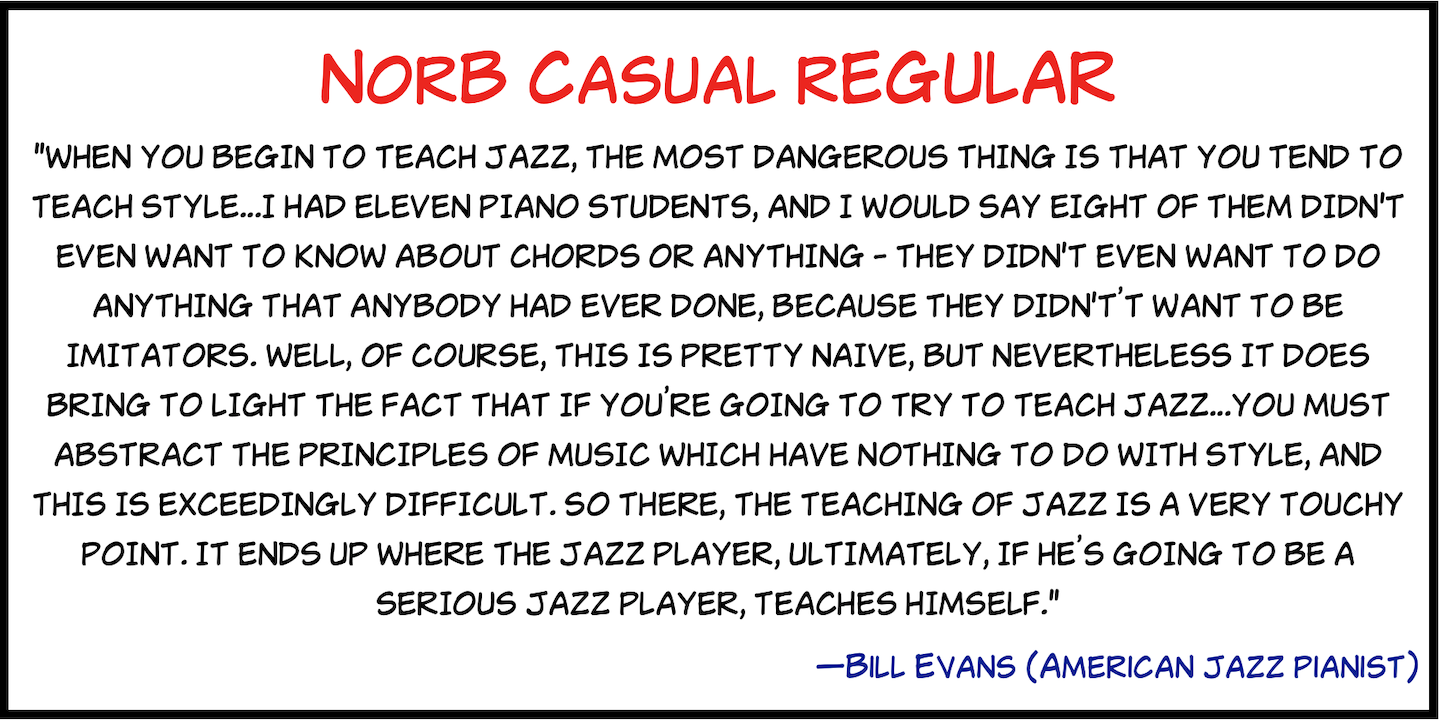
NorB Casual Font Free Download – A Friendly & Approachable Handwritten Typeface
Looking for a font that adds warmth and personality to your designs? NorB Casual Font Free Download delivers a relaxed, natural-looking handwritten style perfect for social media graphics, branding, invitations, and any project needing a personal touch. Its organic flow and slight imperfections create an authentic handcrafted feel.
Why Choose NorB Casual Font?
NorB Casual Font Free Download stands out with its:
Natural handwritten appearance with varied stroke weights
Perfect balance between legibility and character
Great for casual branding and personal projects
Includes stylistic alternates for realistic variation
NorB Casual Font Free Download – Everyday Charm
Bring your designs to life with this friendly typeface for:
Cafe menus & small business branding
Social media quotes & blog graphics
DIY invitations & personal stationery
Handmade product labels & packaging
Designer Tip: Pair with watercolor textures for extra handmade appeal!
(Typography Tip: Use with generous letter spacing (105-110%) for optimal readability!)